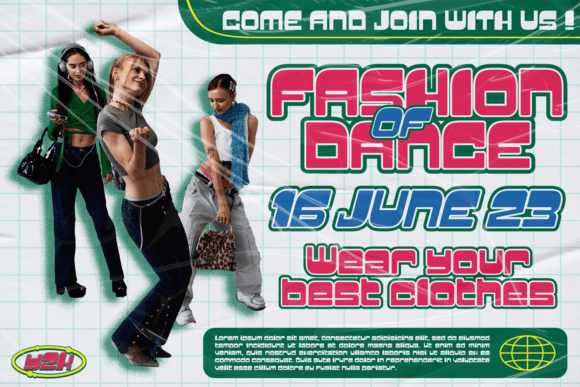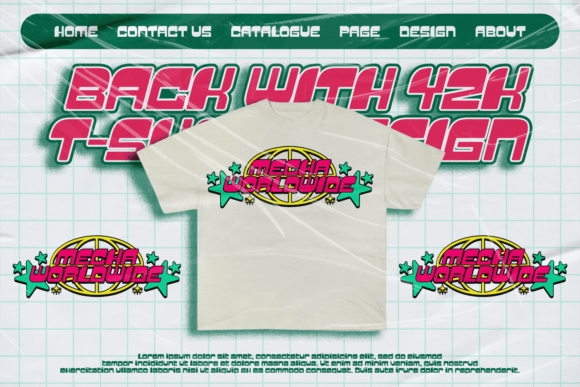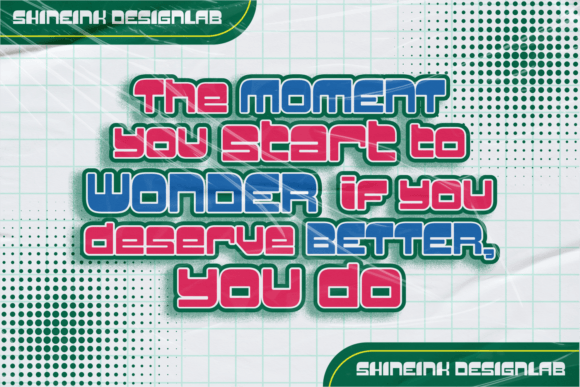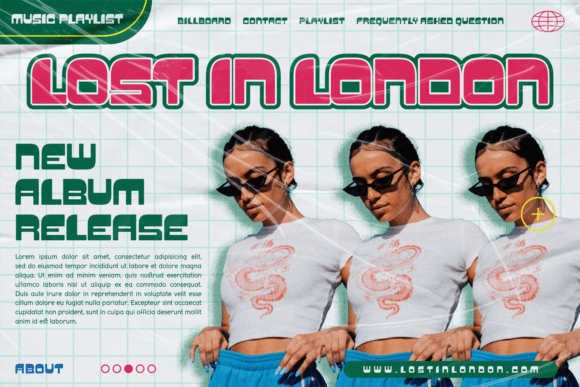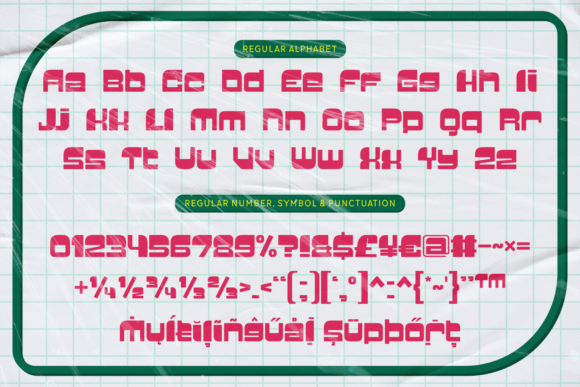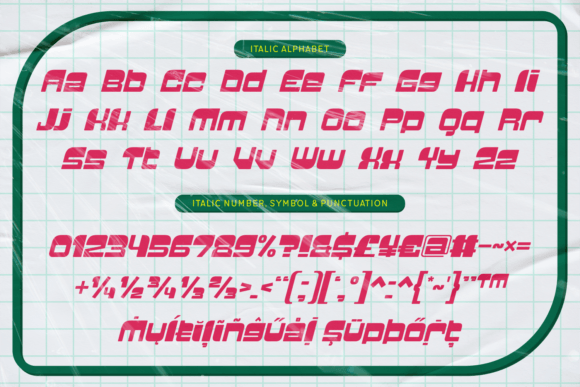
Introduction to Eichos Font
The moment of creative frustration is a familiar one for designers – staring at a blank screen, searching for the perfect font to elevate your project. It’s in these moments that the right design resource can make all the difference. For those looking to add a touch of modernity to their work, Eichos Font is an excellent choice. Its clean lines and rounded edges create a friendly, approachable feel that’s perfect for a wide range of creative projects.
As a designer, having access to high-quality fonts like Eichos can be a game-changer. Not only can they add a professional touch to your designs, but they can also help you stand out in a crowded market. With Eichos Font, you can download it for free and use it on a transparent background, giving you the flexibility to experiment with different design ideas.
Key Features of Eichos Font
- High-quality, professional font suitable for creative projects, such as graphic design, digital art, and publishing.
- Features a clean, modern design with a high level of detail, making it suitable for a wide range of creative projects.
Honest Review: Eichos Font
As a designer, I’ve had the chance to work with various fonts for my creative projects, and I must say that the Eichos Font has left a lasting impression on me. Its unique blend of modern and vintage elements makes it a perfect addition to any design resource.
One of the standout features of the Eichos Font is its transparent background, which makes it incredibly versatile and easy to work with. The font is available for free download, which is a huge plus for designers on a budget.
- Unique and modern design
- High-quality vector graphics
- May not be suitable for very small text sizes due to its complex design
- Limited language support (only Latin characters are available)
Overall, I’m thoroughly impressed with the Eichos Font and would highly recommend it to any designer looking for a high-quality design resource for their creative project.
Tips for Getting the Most Out of Eichos Font
Use the Eichos Font on a transparent background to give your design a clean and modern look. Experiment with different font sizes and styles to create visual interest. The Eichos Font is a versatile design resource that can be used in a variety of creative projects, from graphic design to digital art.
The Eichos Font is commonly used in creative projects, such as graphic design, digital art, and branding. It’s a popular design resource for designers who want to add a touch of elegance and sophistication to their work. The font can be used in a variety of applications, from business cards to posters and websites.